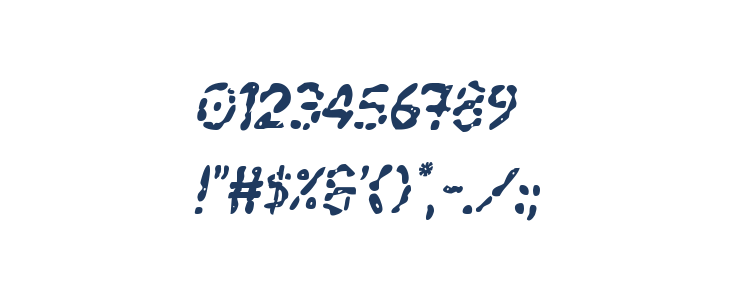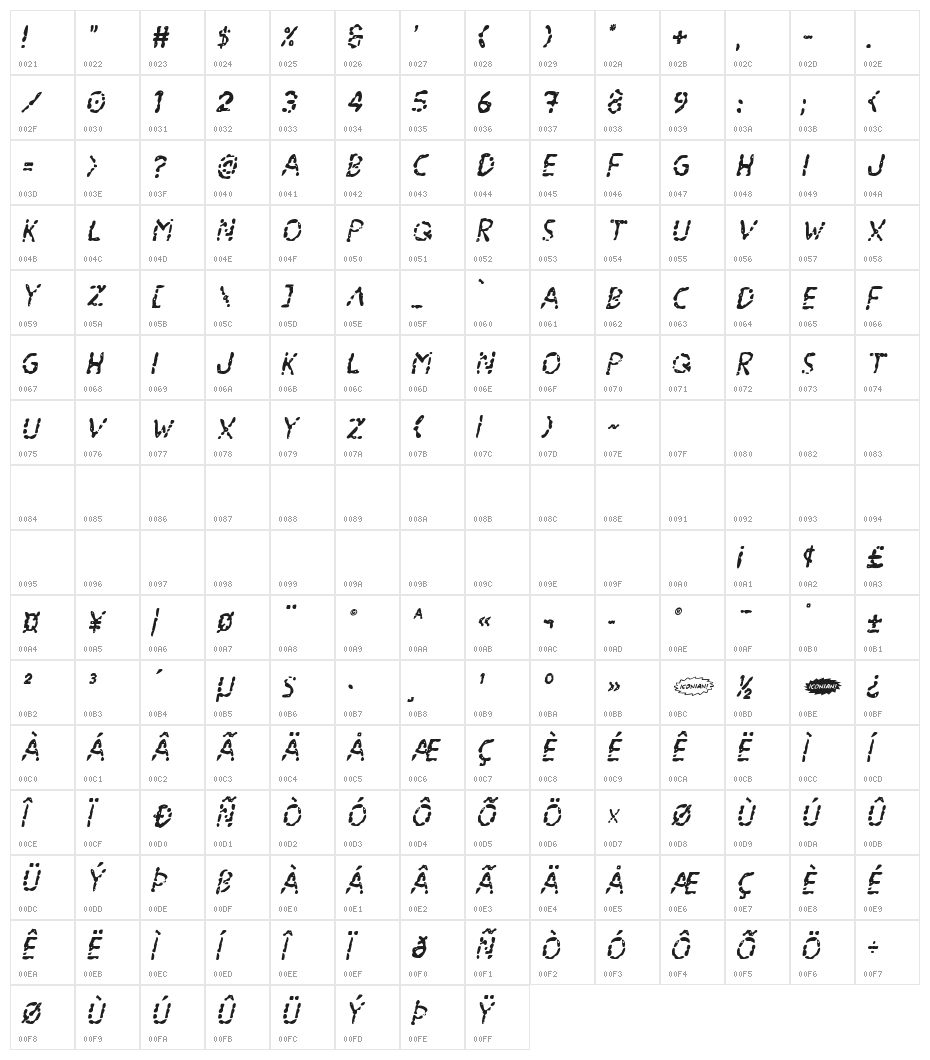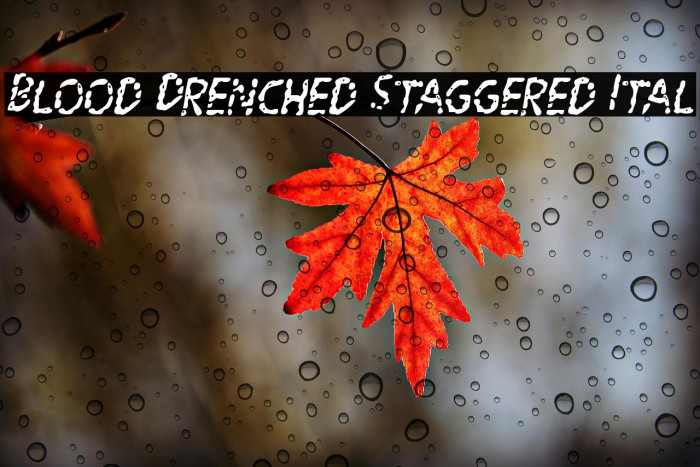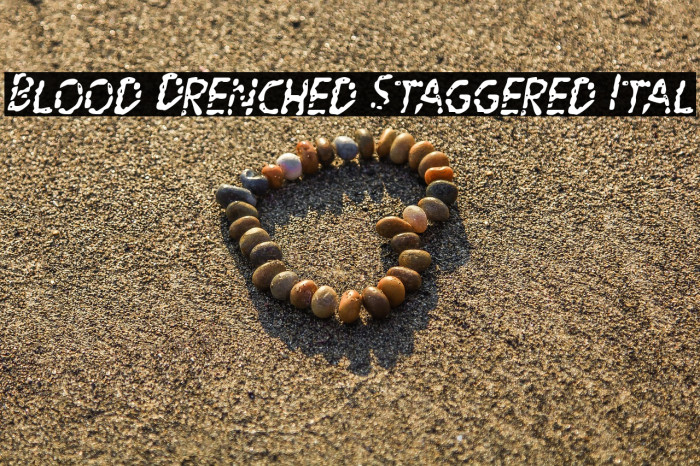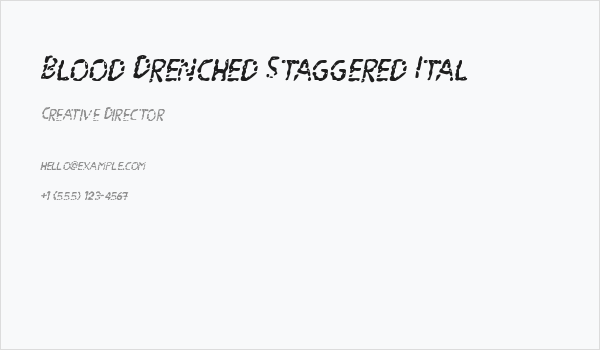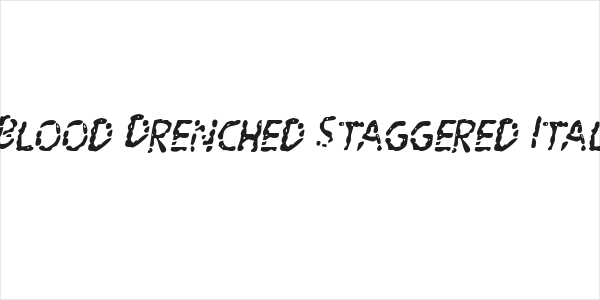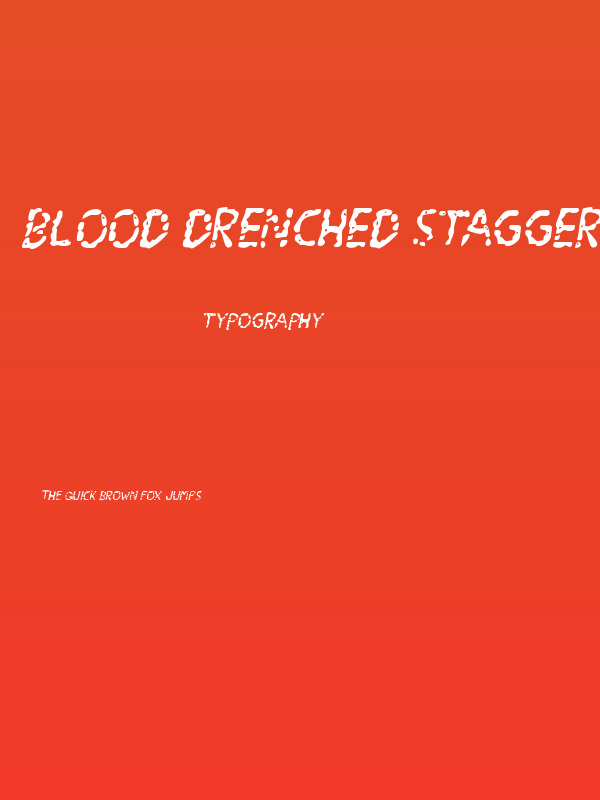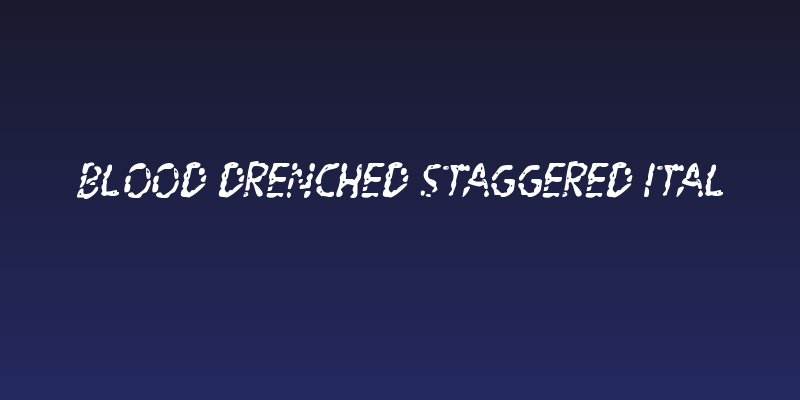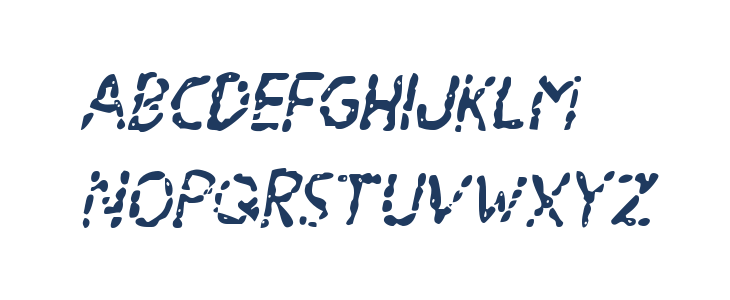
Blood Drenched Staggered Ital Font
Blood Drenched Staggered Ital Description
This font features a dramatic and unsettling design, with letters appearing as if they are dripping or splattered with liquid. The characters have an irregular, jagged appearance, giving them a chaotic and eerie feel. The uppercase and lowercase letters maintain a consistent style, with each character exhibiting unique variations in the splatter effect. Numbers and special characters follow the same theme, enhancing the overall cohesive look. The font's bold and staggered design makes it ideal for creating a sense of horror or suspense in visual projects.
| Use Case | Headlines, Posters, Themed Events |
| Proposed Projects | Ideal for horror-themed posters, Halloween invitations, or any project requiring a dramatic and unsettling typeface. |